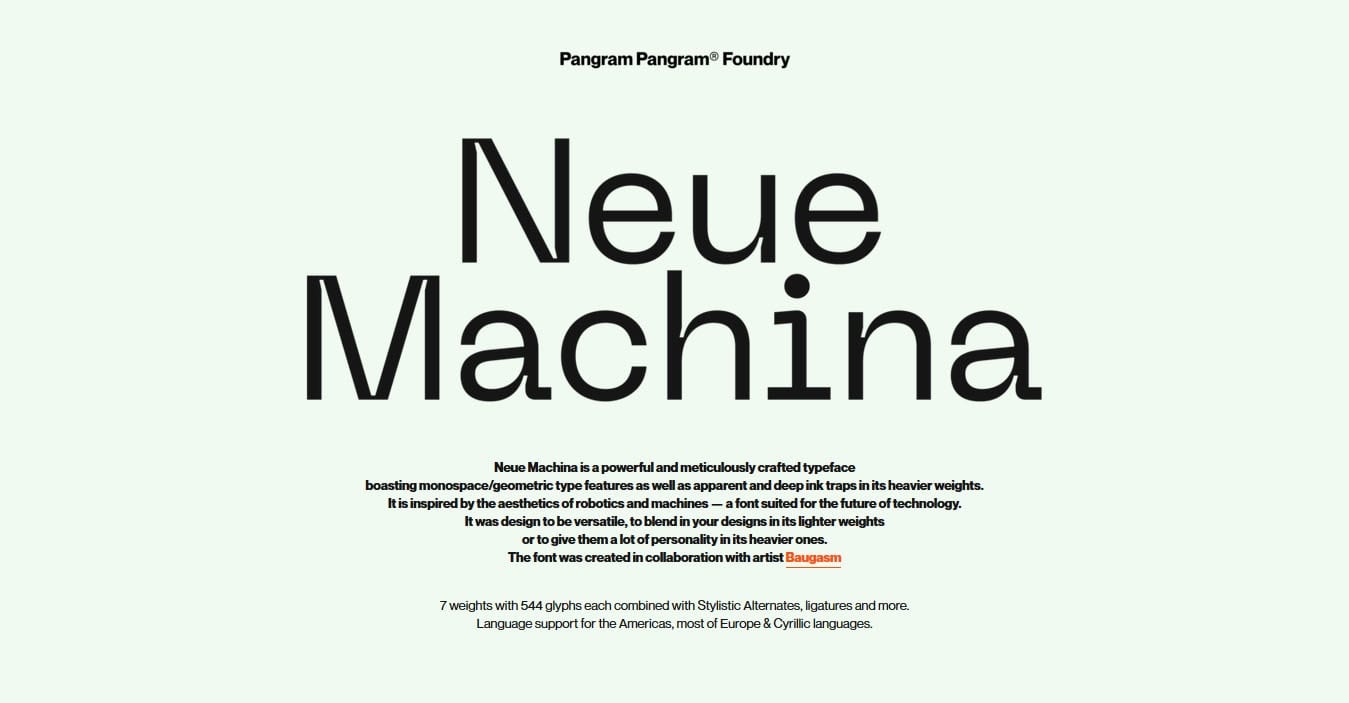
Neue Machina Font
Neue Machina Font - Download neue machina v2.0, a futuristic and versatile font inspired by robotics. Neue machina font family is a mechanical, geometric sans serif typeface with. Neue machina is a powerful and meticulously crafted typeface boasting.
Download neue machina v2.0, a futuristic and versatile font inspired by robotics. Neue machina font family is a mechanical, geometric sans serif typeface with. Neue machina is a powerful and meticulously crafted typeface boasting.
Neue machina is a powerful and meticulously crafted typeface boasting. Neue machina font family is a mechanical, geometric sans serif typeface with. Download neue machina v2.0, a futuristic and versatile font inspired by robotics.
Neue Machina Font on Behance Behance
Neue machina is a powerful and meticulously crafted typeface boasting. Download neue machina v2.0, a futuristic and versatile font inspired by robotics. Neue machina font family is a mechanical, geometric sans serif typeface with.
Neue Machina Font
Neue machina is a powerful and meticulously crafted typeface boasting. Download neue machina v2.0, a futuristic and versatile font inspired by robotics. Neue machina font family is a mechanical, geometric sans serif typeface with.
Neue machina is a powerful and meticulously crafted typeface boasting. Neue machina font family is a mechanical, geometric sans serif typeface with. Download neue machina v2.0, a futuristic and versatile font inspired by robotics.
Neue Machina Font
Download neue machina v2.0, a futuristic and versatile font inspired by robotics. Neue machina font family is a mechanical, geometric sans serif typeface with. Neue machina is a powerful and meticulously crafted typeface boasting.
Neue Machina Font Fonts Hut
Download neue machina v2.0, a futuristic and versatile font inspired by robotics. Neue machina is a powerful and meticulously crafted typeface boasting. Neue machina font family is a mechanical, geometric sans serif typeface with.
Neue Machina Font
Download neue machina v2.0, a futuristic and versatile font inspired by robotics. Neue machina is a powerful and meticulously crafted typeface boasting. Neue machina font family is a mechanical, geometric sans serif typeface with.
Neue Machina Font
Download neue machina v2.0, a futuristic and versatile font inspired by robotics. Neue machina is a powerful and meticulously crafted typeface boasting. Neue machina font family is a mechanical, geometric sans serif typeface with.
Neue Machina Font
Download neue machina v2.0, a futuristic and versatile font inspired by robotics. Neue machina font family is a mechanical, geometric sans serif typeface with. Neue machina is a powerful and meticulously crafted typeface boasting.
Neue Machina Font
Neue machina font family is a mechanical, geometric sans serif typeface with. Download neue machina v2.0, a futuristic and versatile font inspired by robotics. Neue machina is a powerful and meticulously crafted typeface boasting.
Neue Machina Is A Powerful And Meticulously Crafted Typeface Boasting.
Download neue machina v2.0, a futuristic and versatile font inspired by robotics. Neue machina font family is a mechanical, geometric sans serif typeface with.